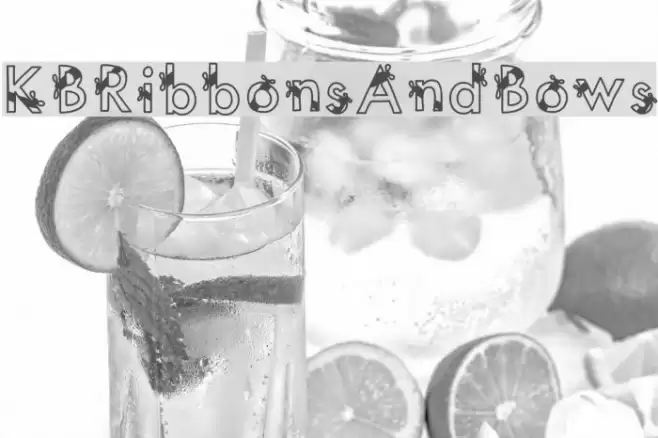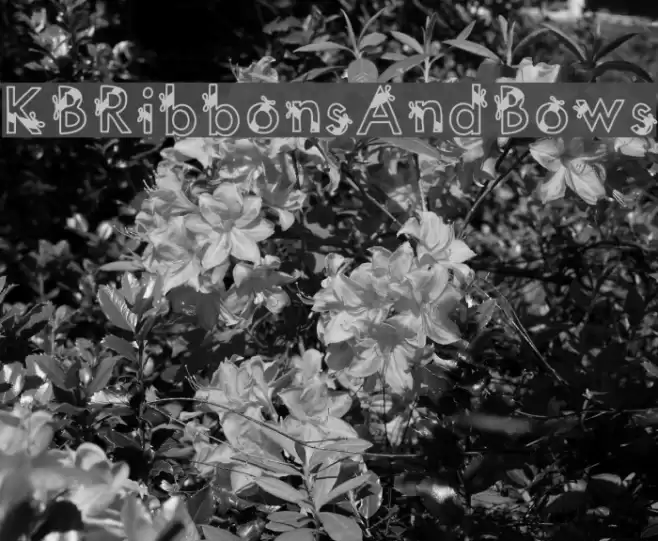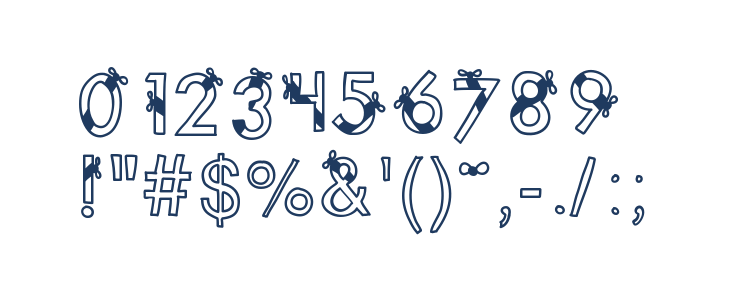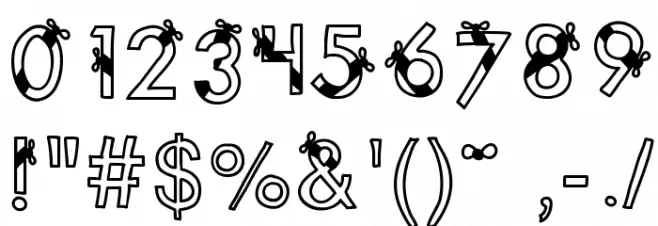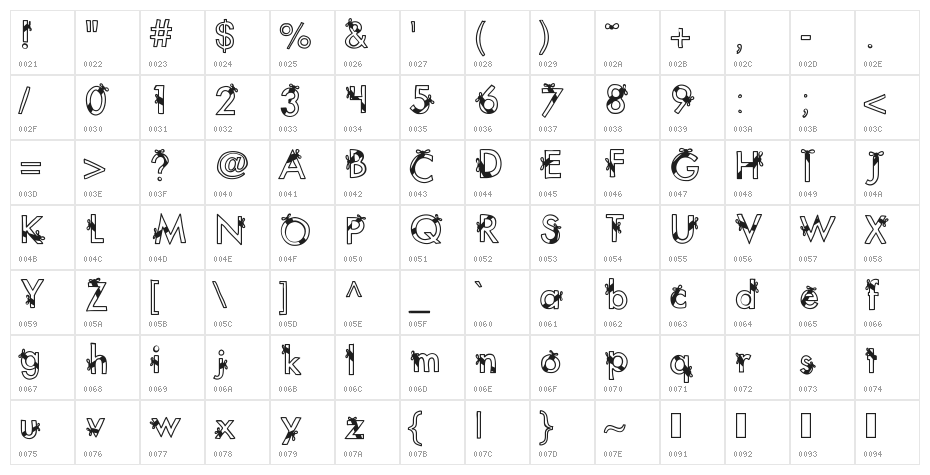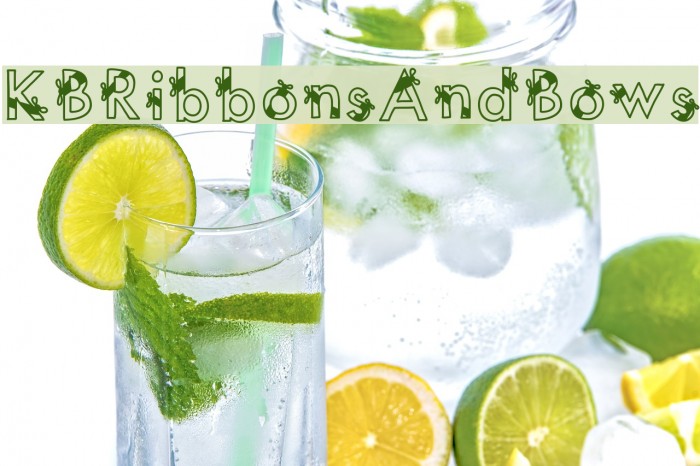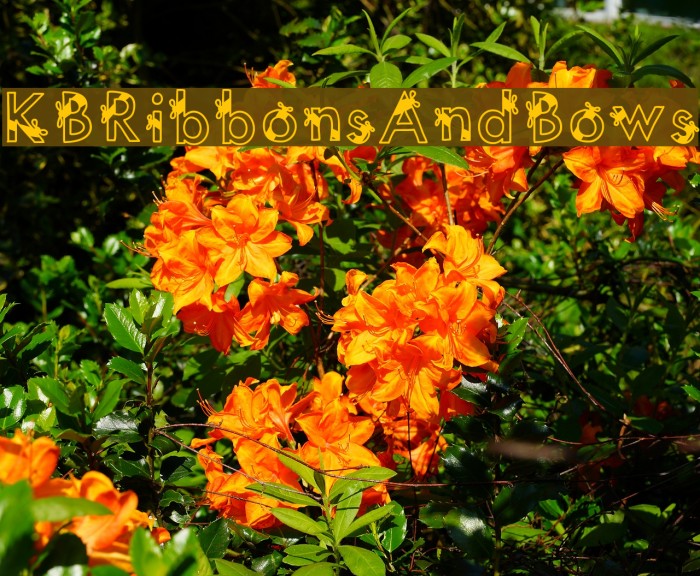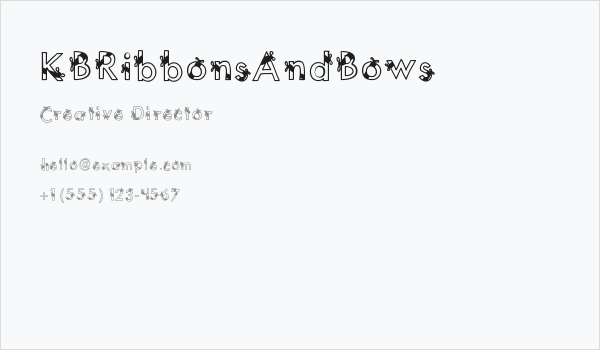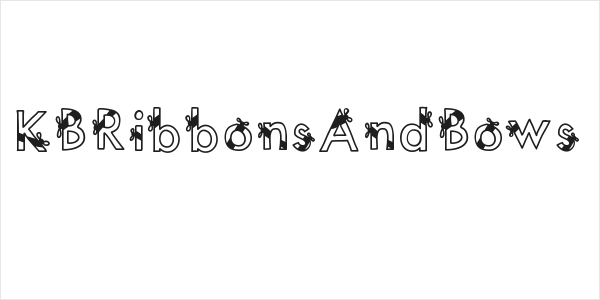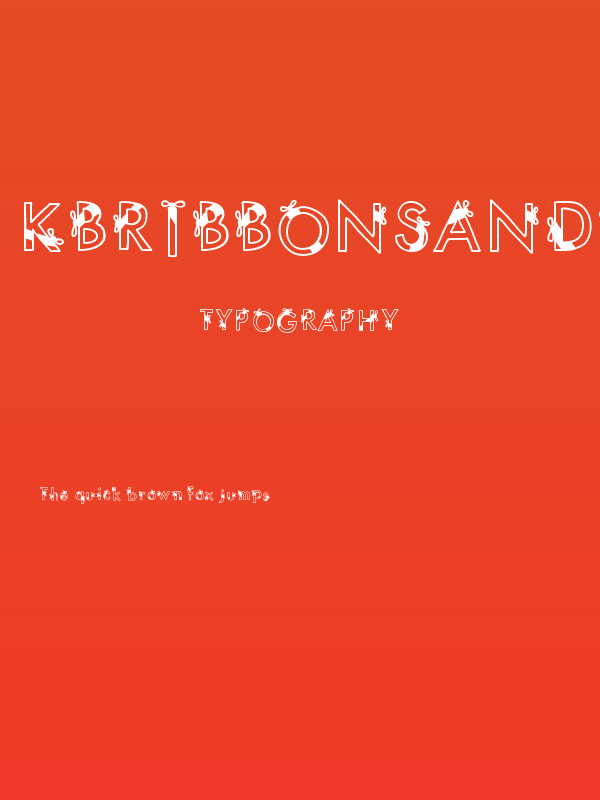
KBRibbonsAndBows Font
KBRibbonsAndBows Description
This playful and decorative font features a unique design where each character is adorned with ribbon-like elements, giving it a whimsical and festive appearance. The letters are bold and outlined, with a consistent thickness that maintains readability despite the intricate details. The uppercase and lowercase letters maintain a uniform style, while the numerals and special characters are crafted to match the overall theme. This font is perfect for projects that require a touch of elegance and fun, such as invitations, greeting cards, or festive branding. The design is both eye-catching and charming, making it suitable for a variety of creative applications.
A decorative font with ribbon-like embellishments on each character, perfect for festive designs from Decorative fonts.
- Proposed Projects: Ideal for invitations, greeting cards, festive branding, and decorative posters.